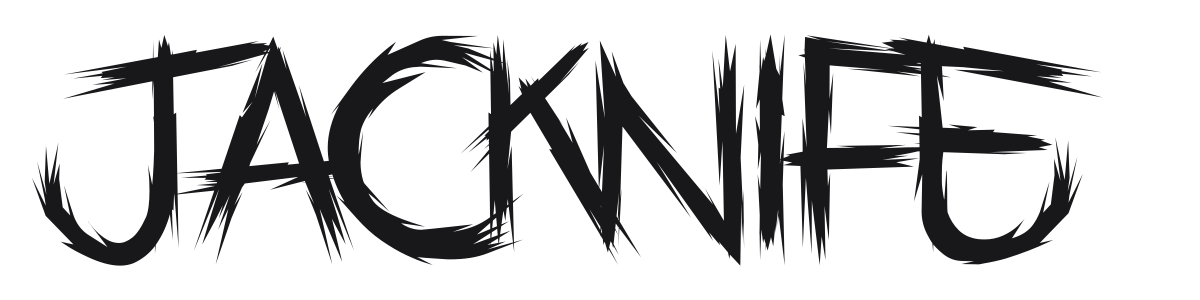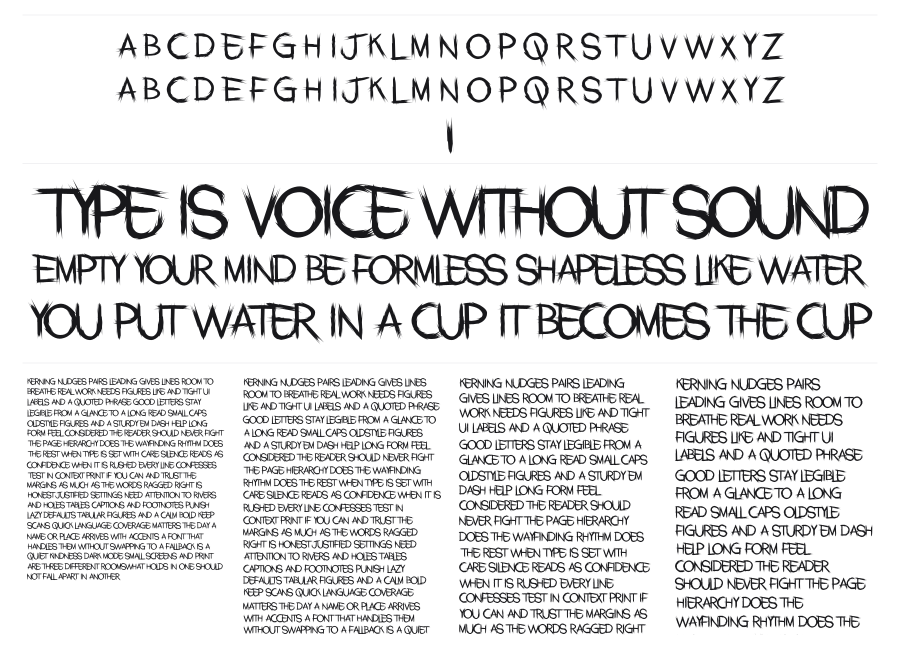
Jacknife
Jackknife is a heavy distressed display face built from violent, slashing brush strokes that splinter into jagged hairlines and stray ink marks. Every character looks like it was carved or torn rather than written, giving it an unmistakable edge for horror, metal, and punk-adjacent projects. It carries serious attitude at large sizes.